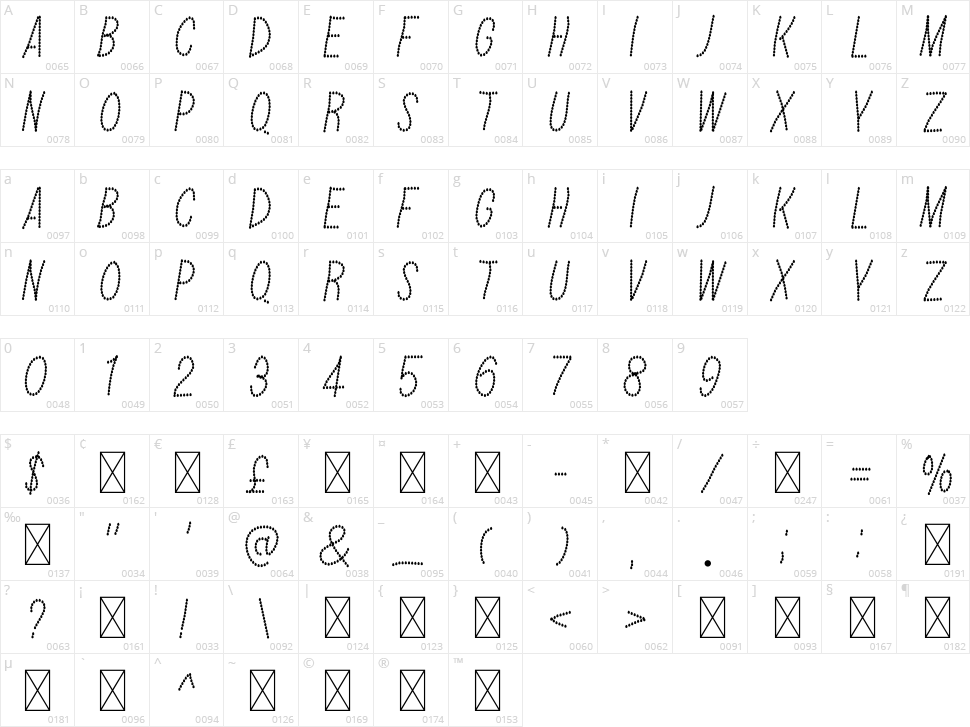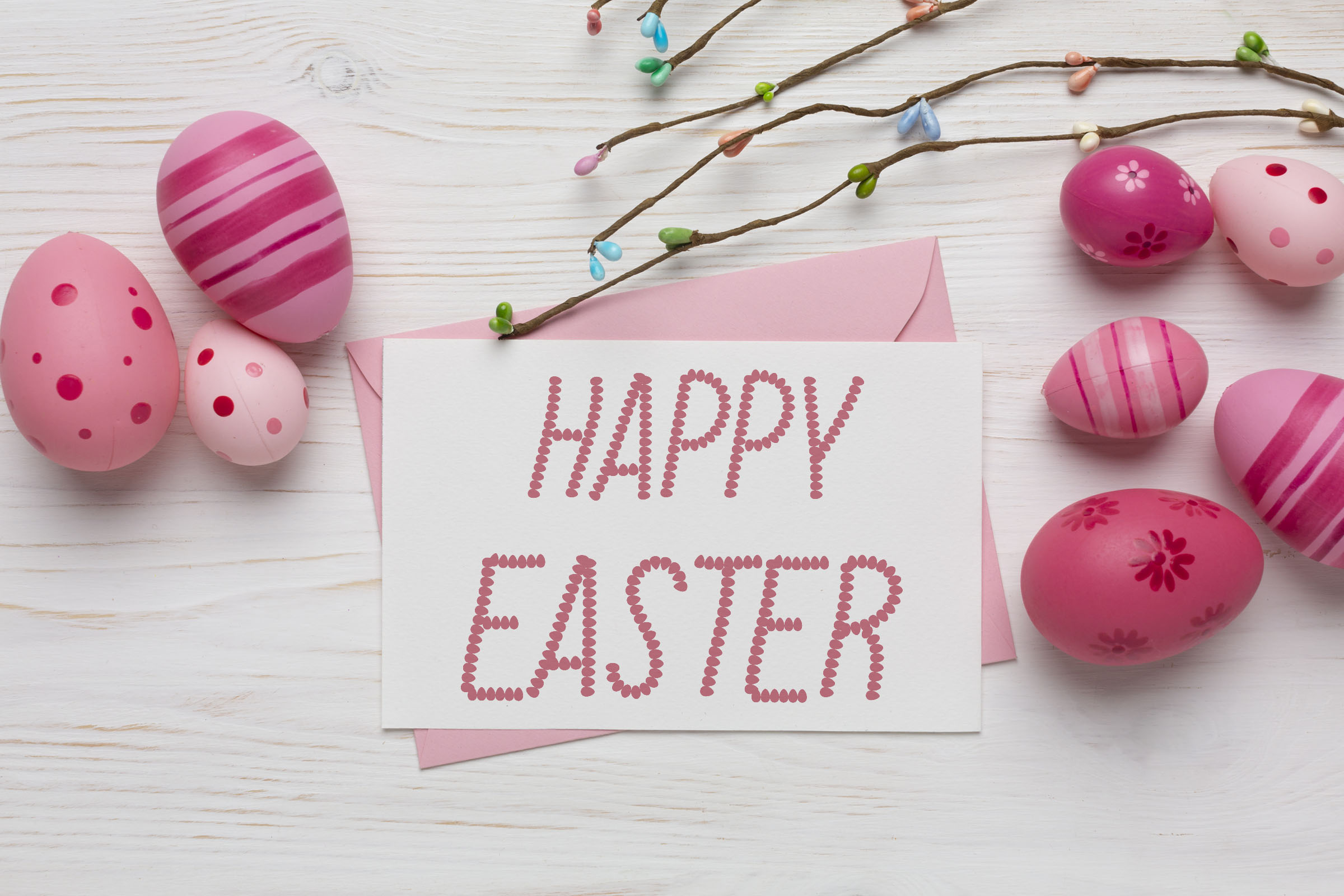
Easter Joy Font
Easter Joy is a playful and fun font that is perfect for creating Easter-themed designs. The font features a hand-drawn look with a playful, whimsical feel. It includes upper letters, as well as numbers and punctuation.